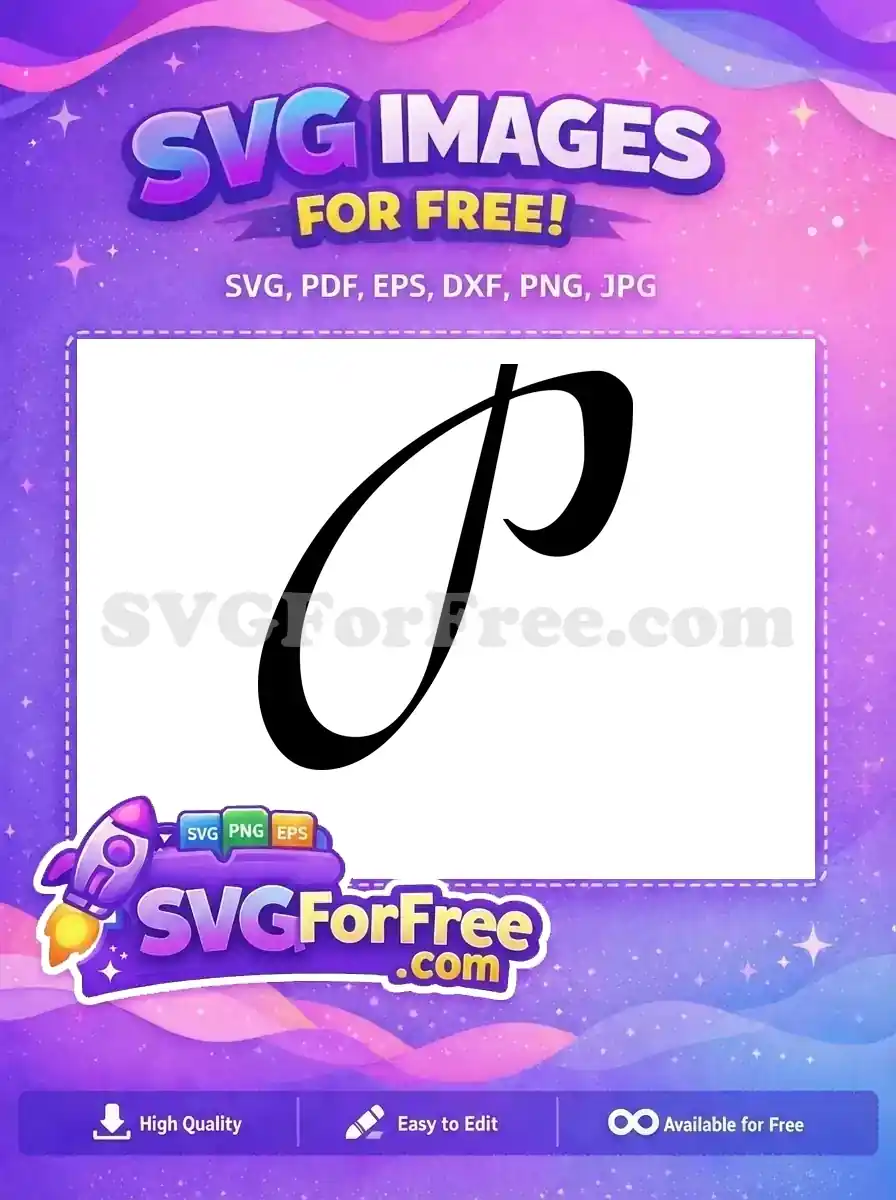
Free Elegant Font Free Letter P Initial Free SVG – Instant Download
A free, tall, and elegant script letter P. This complimentary graphic has a refined and slender profile.
Free Elegant Font Free Letter P Initial Free SVG